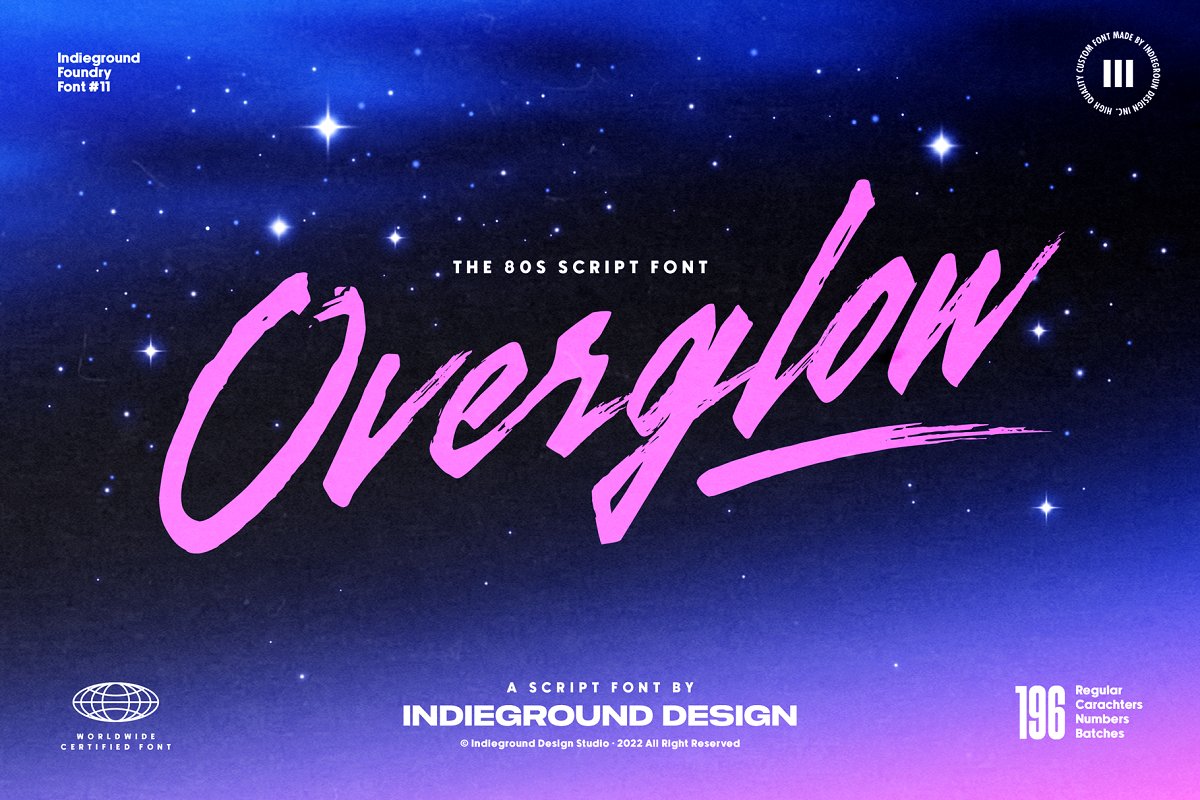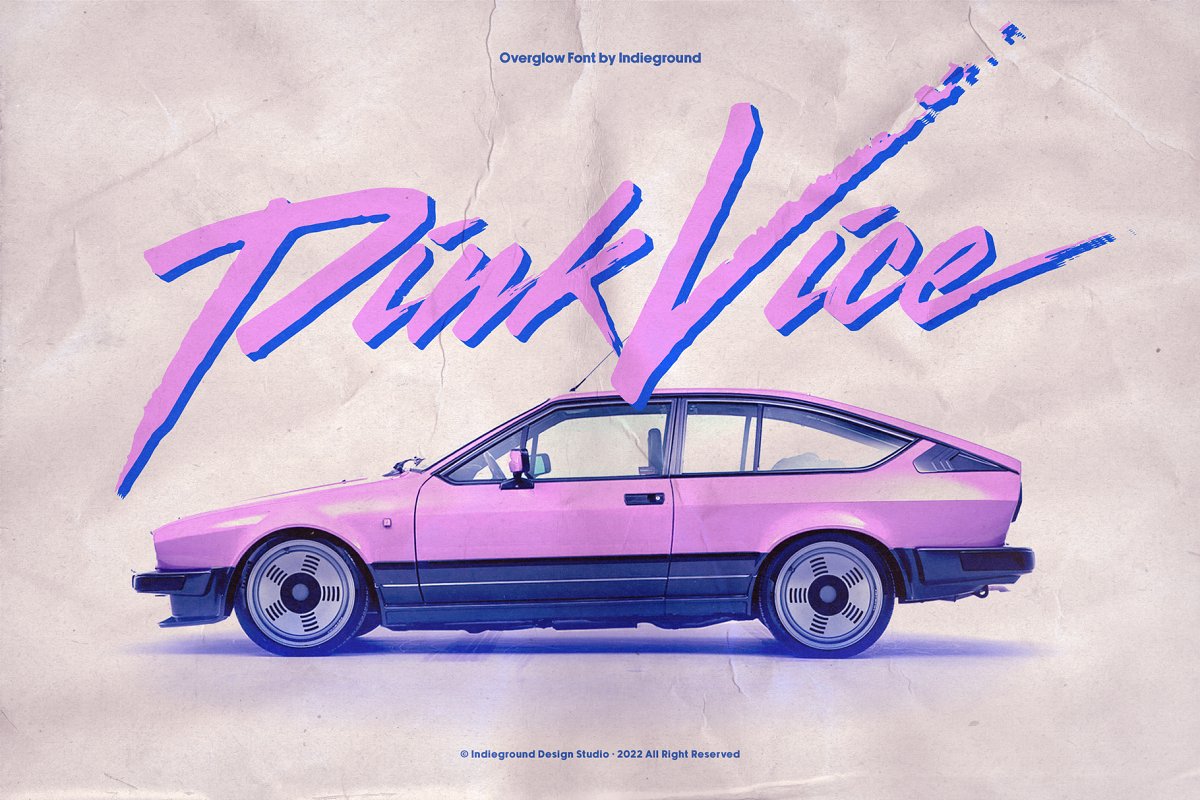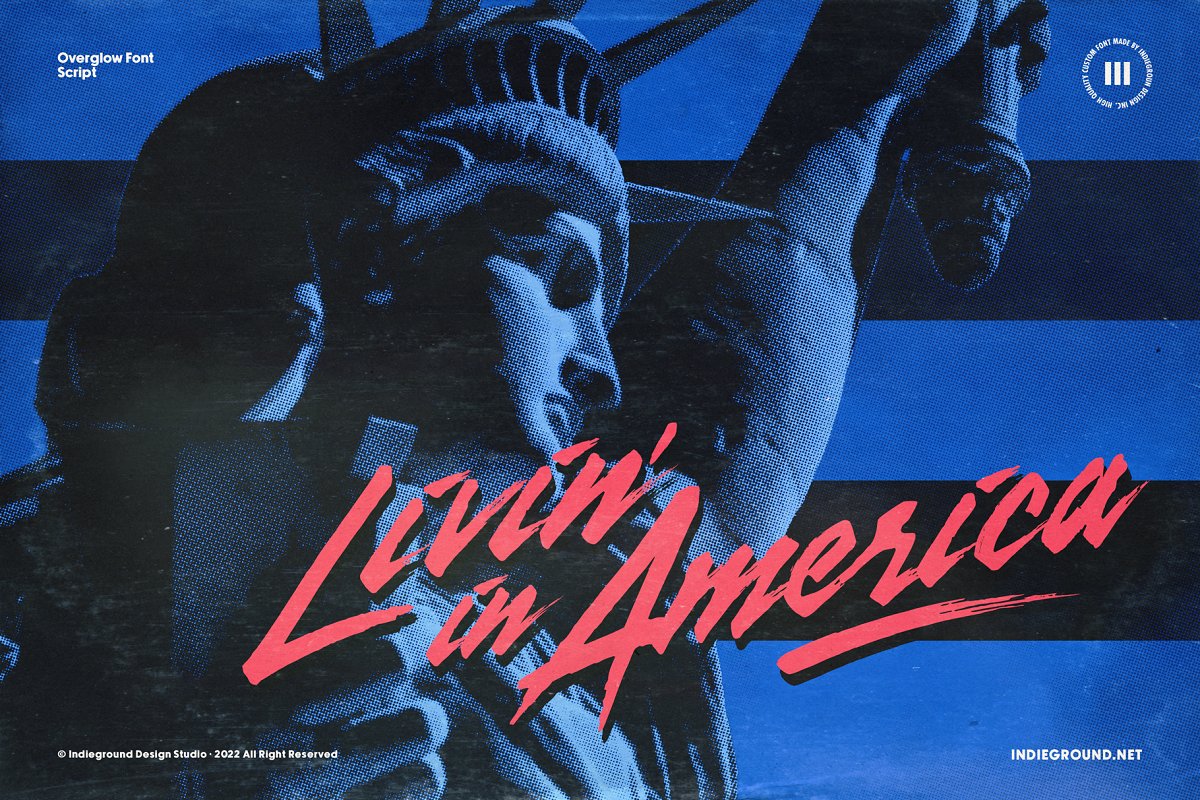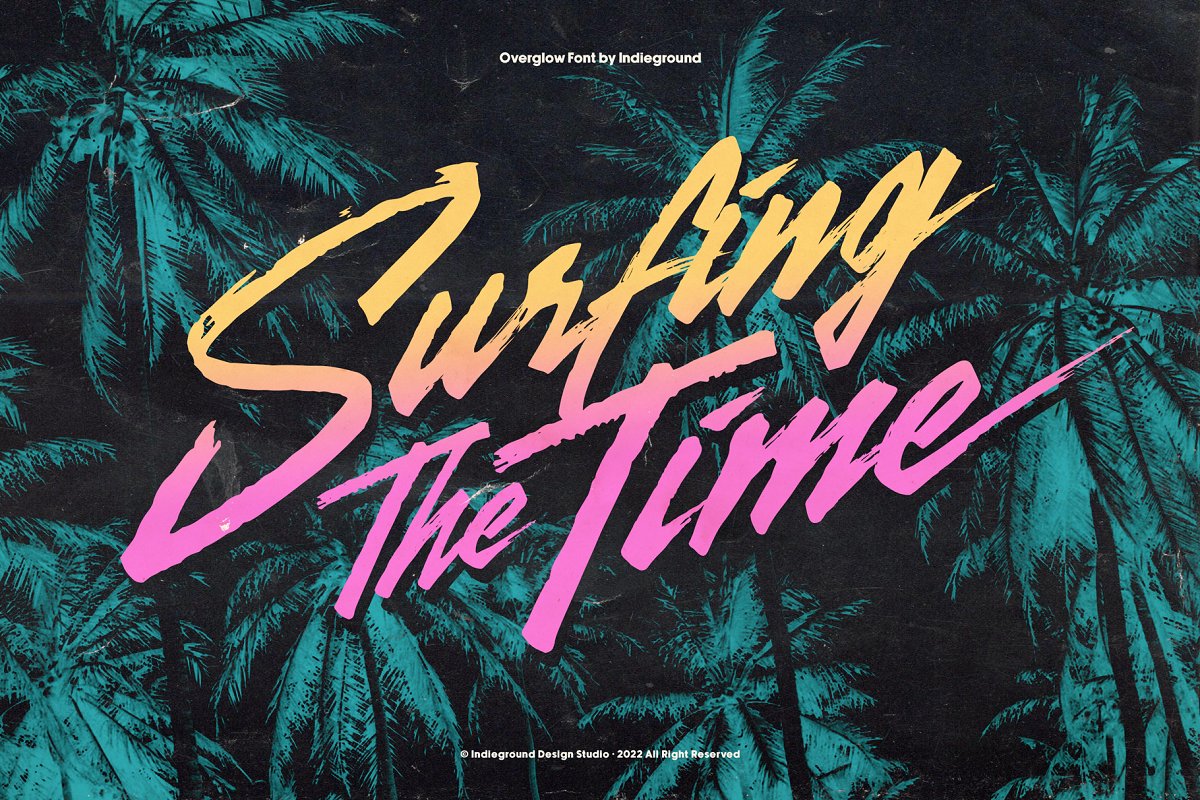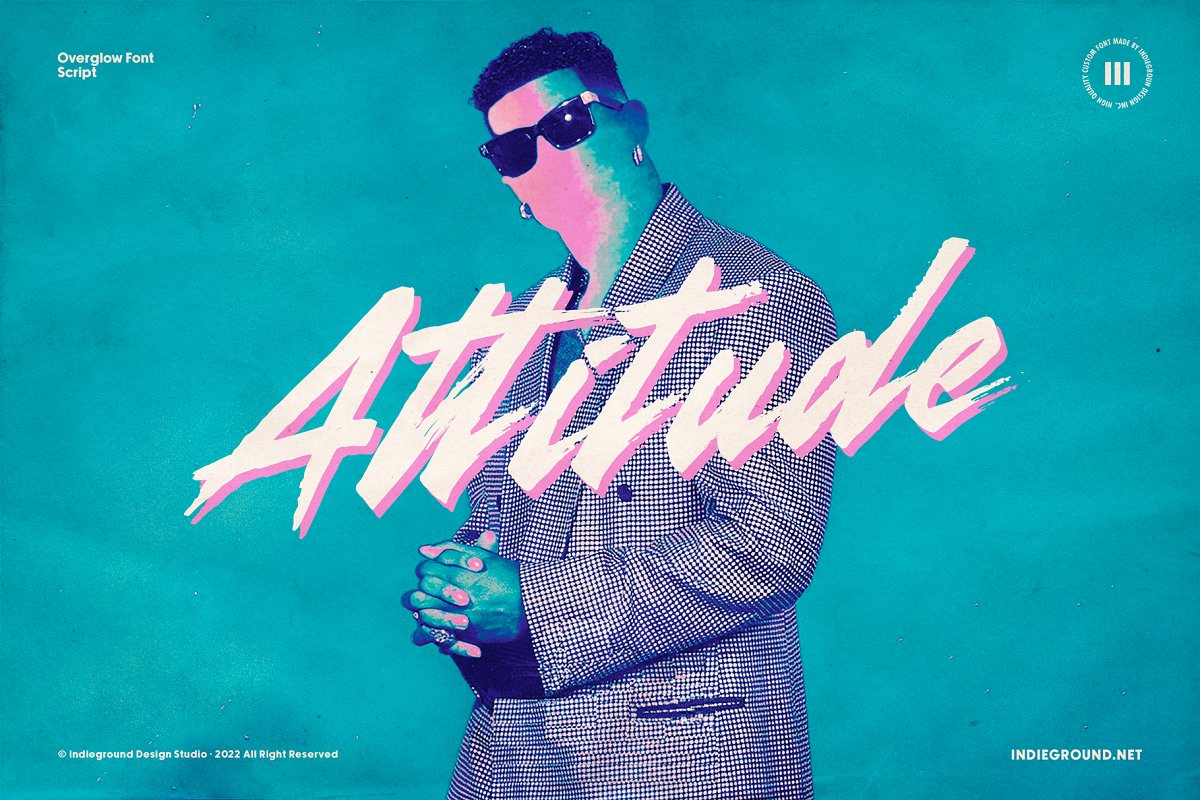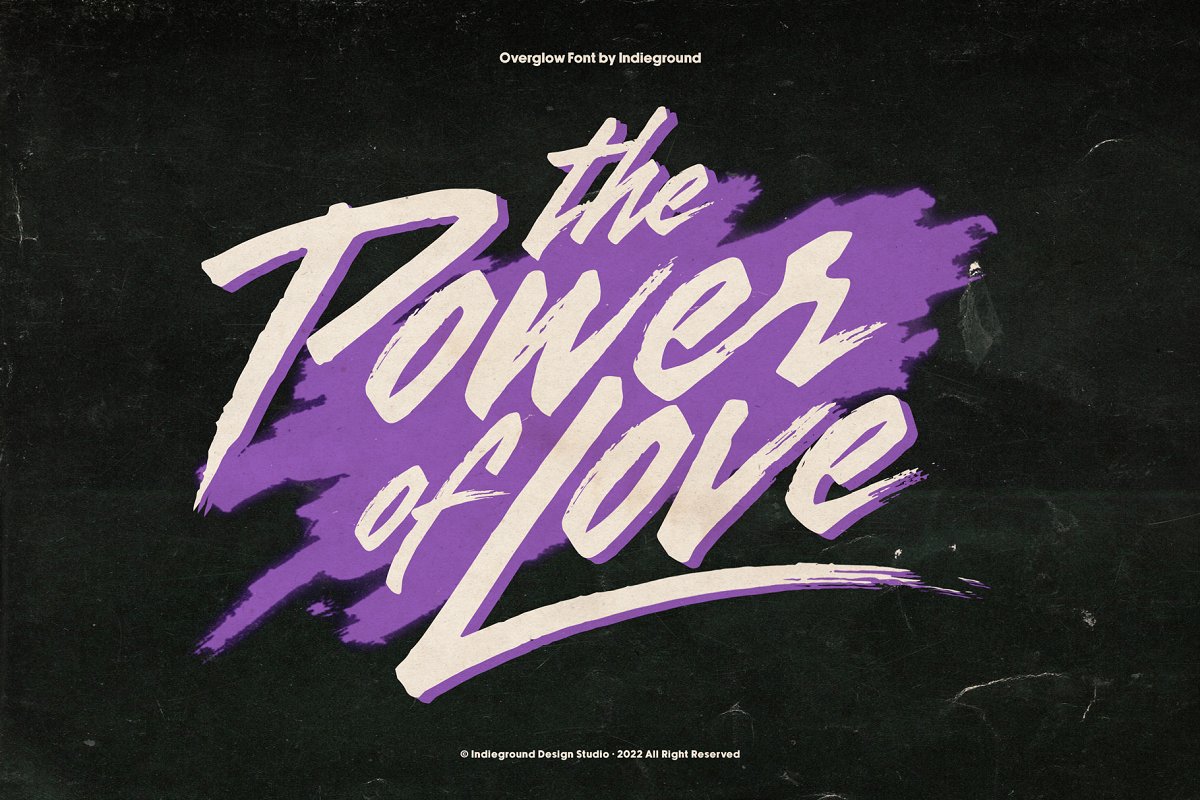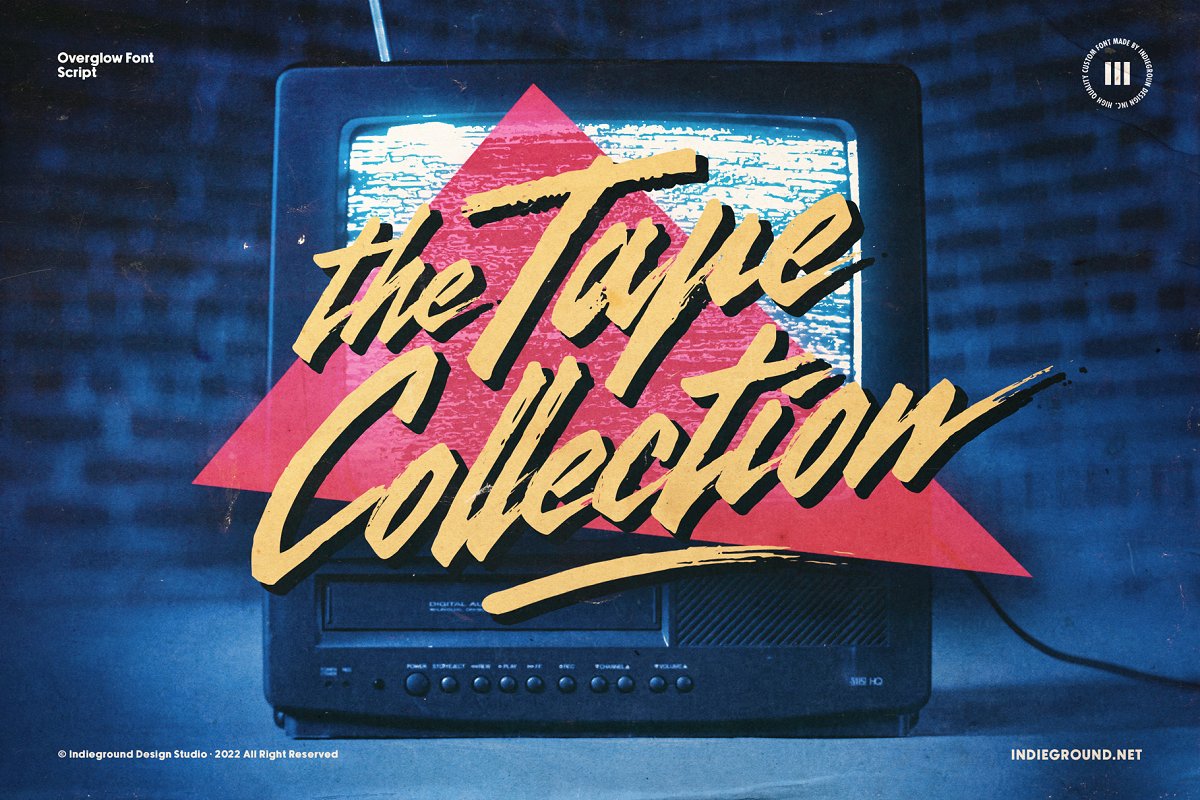
About the Overglow Font
Overglow Font by Indieground This awesome calligraphic font with a retro taste was designed in collaboration with artist Alessandro Strickner aka Overglow! Designed specifically for artworks with an 80s and 90s atmosphere, this font is a perfect match for synthwave, vaporwave and aesthetic elements, Ideal for titles and logotypes, Overglow is a versatile font that can be used in so many ways – thanks to its many ligatures, underlines and glyphs this is a multitasking font!What do you get?OverglowRegular